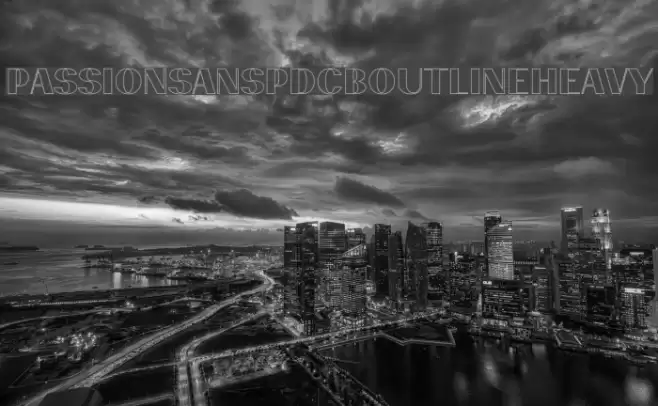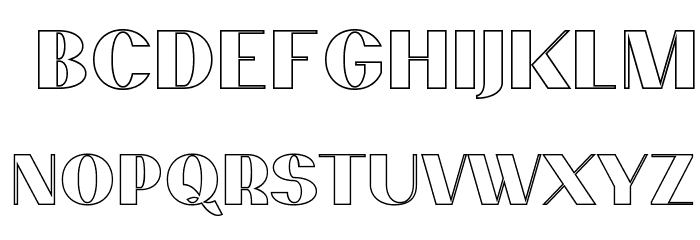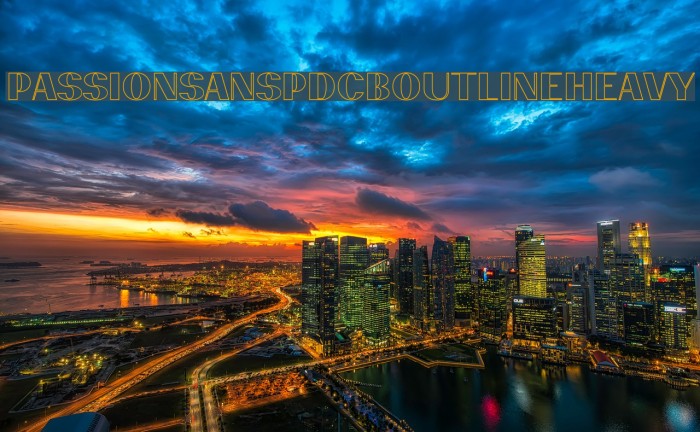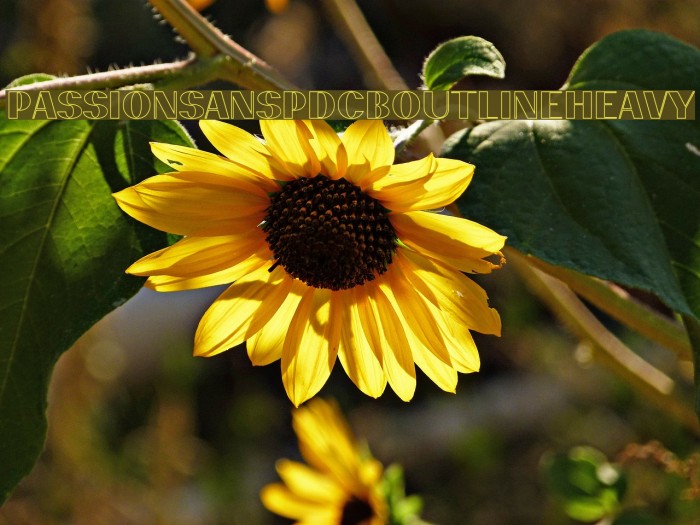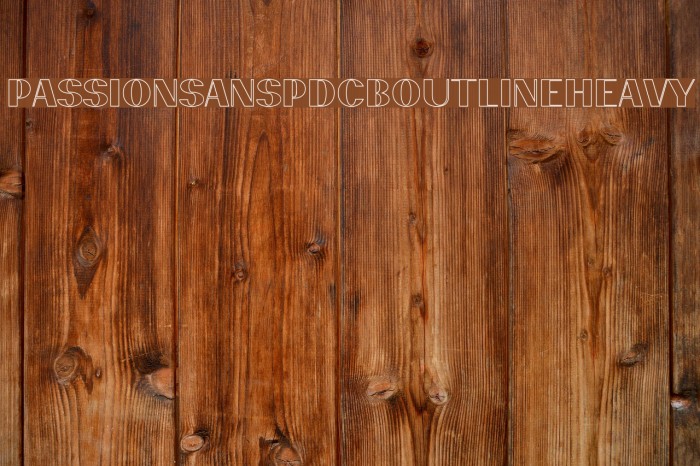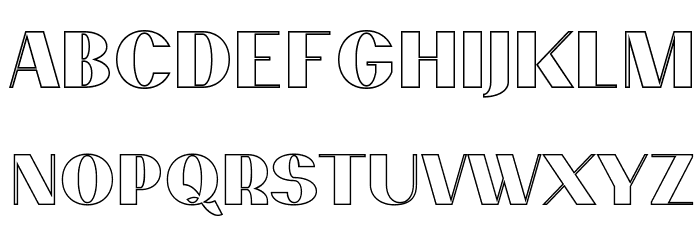
PassionSansPDcb-OutlineHeavy Font
PassionSansPDcb-OutlineHeavy Description
This font features a bold, outlined style with a modern and geometric aesthetic. The characters are uppercase, with a consistent stroke width that creates a uniform appearance. The outlines are clean and precise, giving each letter a distinct and sharp look. The font's design is minimalistic yet impactful, making it suitable for various design applications. Its outline nature allows for creative use of color and background, enhancing its versatility. The overall style is contemporary, with a focus on clarity and readability, making it ideal for attention-grabbing headlines and titles.
A bold, outlined, geometric font with a modern aesthetic from Sans Serif fonts.